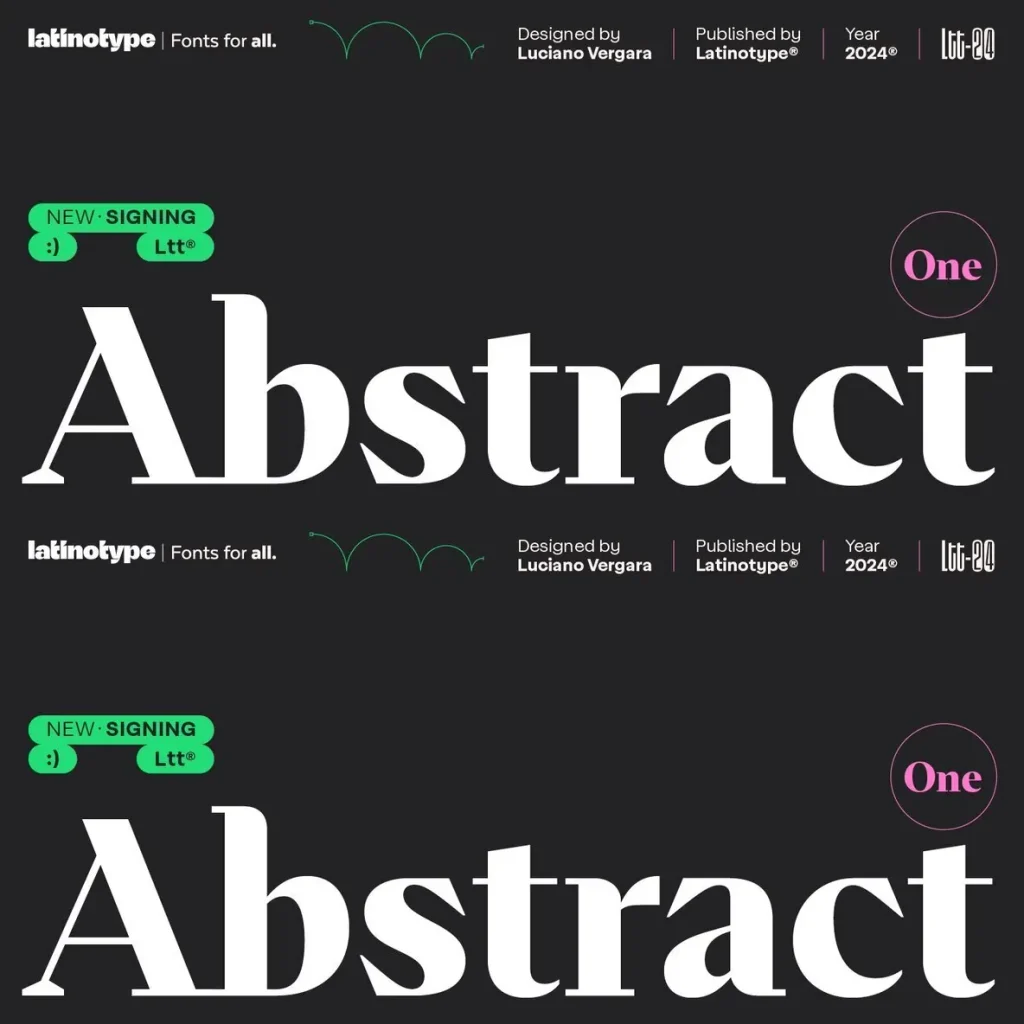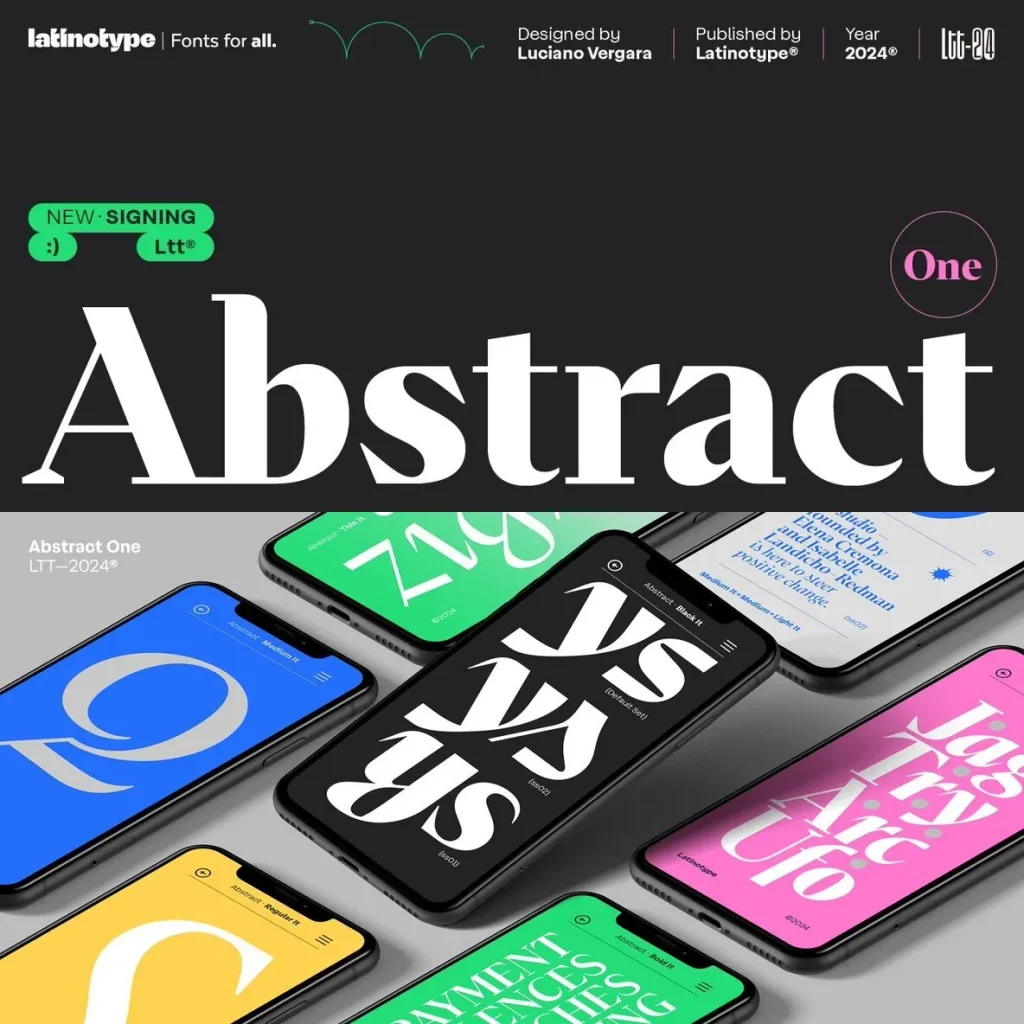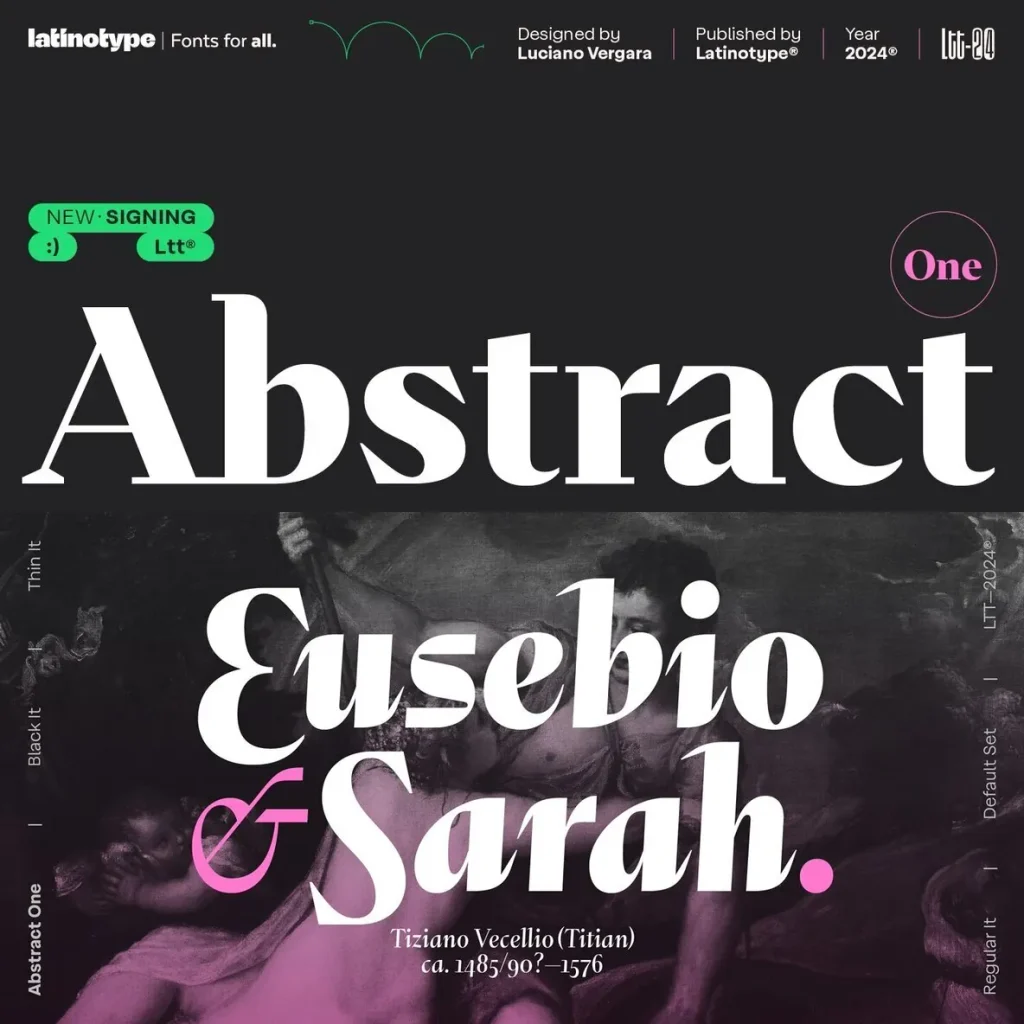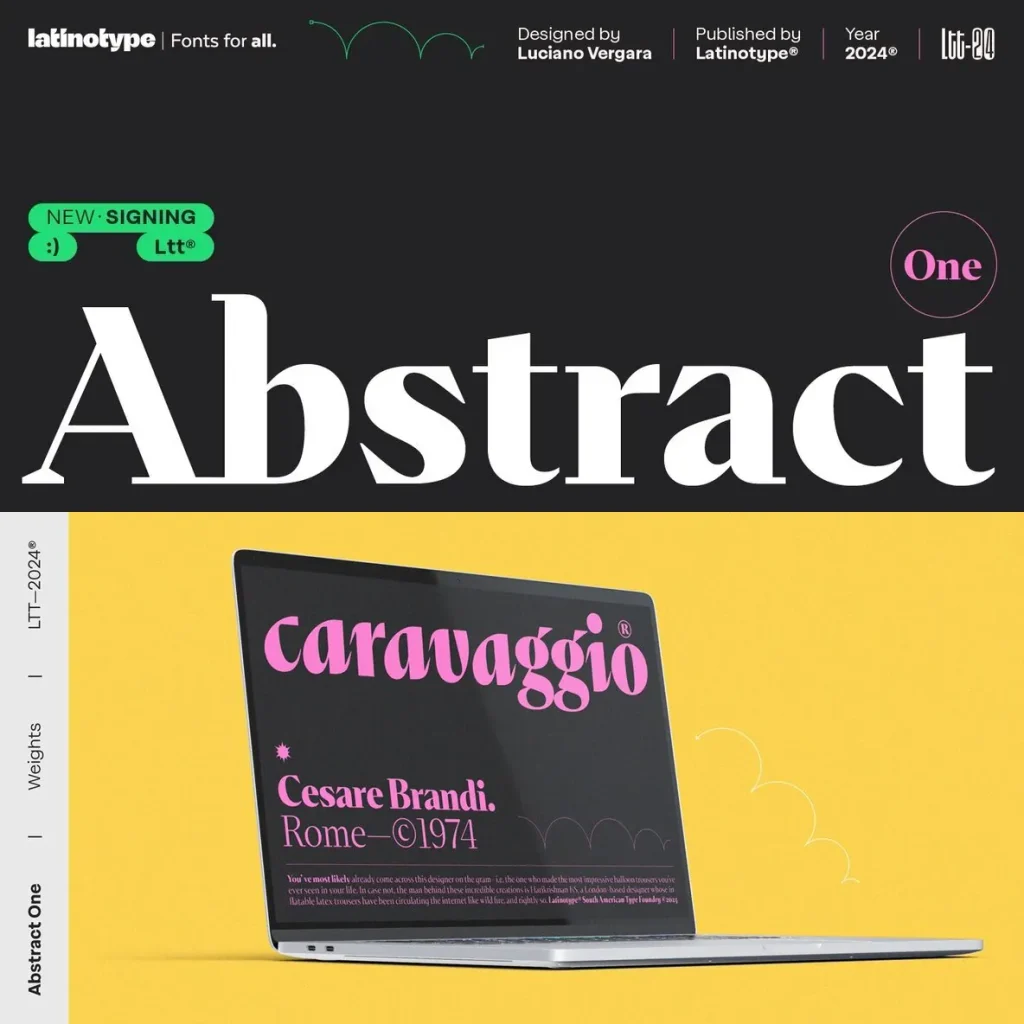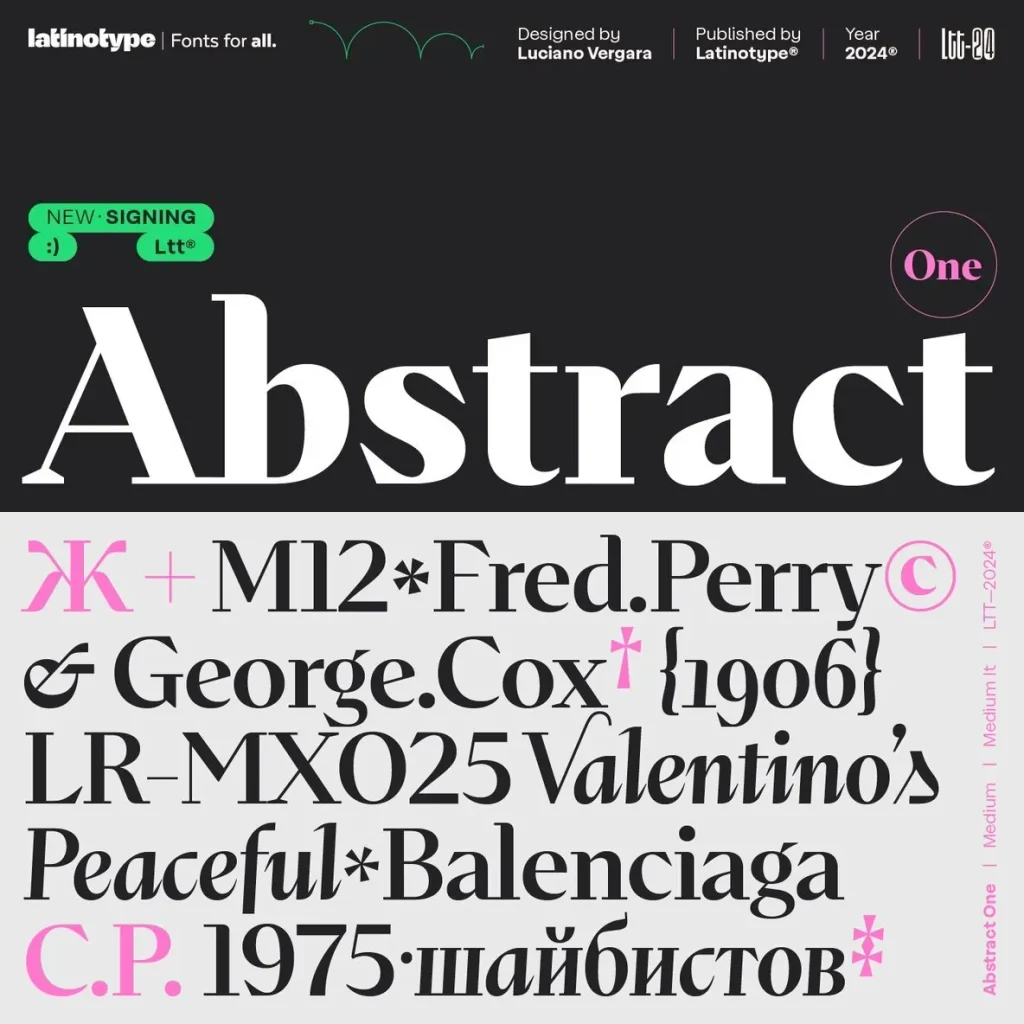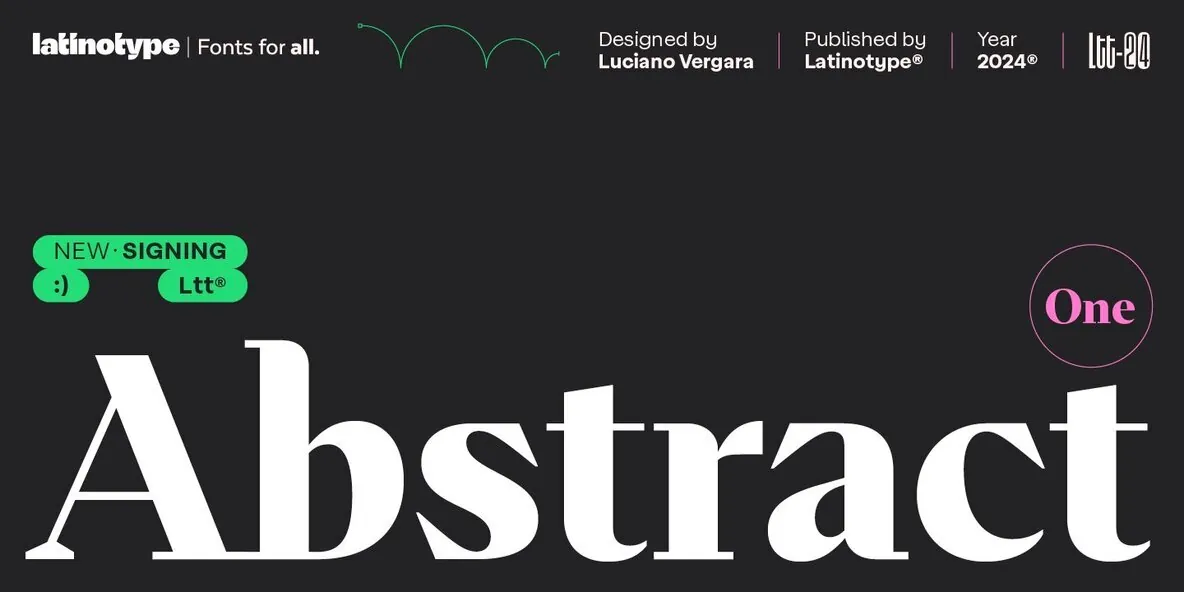
Abstract One Serif Typeface
Abstract One is a modern serif font that draws influence from contemporary culture and the unique circumstances of the pandemic era. Its refined letterforms exude a balance of classic elegance and modern character, making it suitable for forward-thinking editorial projects, branding, and creative design work. The inclusion of a distinct italic variant offers added versatility, reflecting a strong typographic personality that stands apart from conventional italics.
True italic variant for expressive typographic choices
Stylish alternates
Lining and old style figures for flexibility in number formatting
Abstract One’s eclectic feel lends depth to magazine layouts, sophisticated packaging, and visual identities seeking a touch of distinction. Designed for those who appreciate thoughtful letterforms and meaningful detail in type design, this typeface brings a contemporary edge to any creative project.